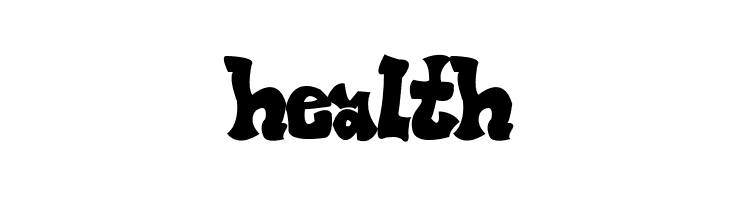
( Fonts by www.sweeep.fr - Damien Gosset )
A bold, graffiti-inspired font with a dynamic, hand-drawn style.
A playful, casual handwritten font with dynamic strokes.
( Fonts by or from www.graffitifonts.net )
A graffiti-inspired font with sharp, angular lines and an edgy, rebellious style.
( youtube.com/mrcsomi )
A bold, dripping graffiti-style font with an edgy, urban aesthetic.
( Fonts by Alex Tomlinson - Skyhaven Fonts - shfonts.com )
A playful, handwritten font with dynamic strokes and a casual style.
A bold, graffiti-inspired font with sharp angles and a dripping effect.
A bold, edgy font with a hand-drawn, rebellious style.
( www.angrydubs.com )
An artistic and angular font with a bold, geometric style.
( Fonts by or from www.graffitifonts.net )
A bold, graffiti-inspired font with thick outlines and dynamic curves.
( Fonts by Mans Greback - www.mawns.com )
Graffiti-inspired font with bold, dripping letters and an urban aesthetic.
( Fonts by Mans Greback - www.mawns.com )
A bold, graffiti-inspired font with a dripping, rebellious style.
( Fonts by Mans Greback - www.mawns.com )
A bold, graffiti-inspired font with sharp, angular strokes and dynamic flow.
A bold, angular font with a gothic flair, perfect for dramatic and impactful designs.
( Fonts by Rodrigo German - RASDESIGN )
A bold, expressive handwritten font with dynamic strokes and unique embellishments.
( Fonts by Mans Greback - www.mawns.com )
Bold, graffiti-inspired font with a dripping effect.
( Fonts by Mans Greback - www.mawns.com )
A bold, condensed font with thick strokes and a striking, uniform appearance.
( Fonts by Jacob Fisher - www.pizzadude.dk )
A bold, playful font with an urban, graffiti-inspired style.
( Fonts by or from www.graffitifonts.net )
A playful, bold outline font with a hand-drawn, cartoonish style.
( www.cali-o-rama.com )
A bold, geometric font with an urban, edgy style.
( Fonts by Jacob Fisher - www.pizzadude.dk )
A bold, playful font with a unique diagonal striped pattern.
( Fonts by Jacob Fisher - www.pizzadude.dk )
A bold, playful font with a hand-drawn, energetic style.